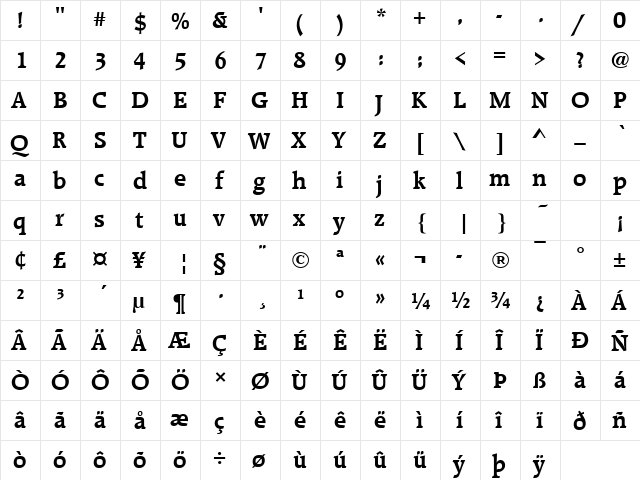
RaleighT Bold
Design Context for RaleighT Typeface
RaleighT takes a measured approach to typography — its balanced proportions and neutral character make it a reliable workhorse for both digital and print work. Its bold stroke weight gives it real presence on the page.